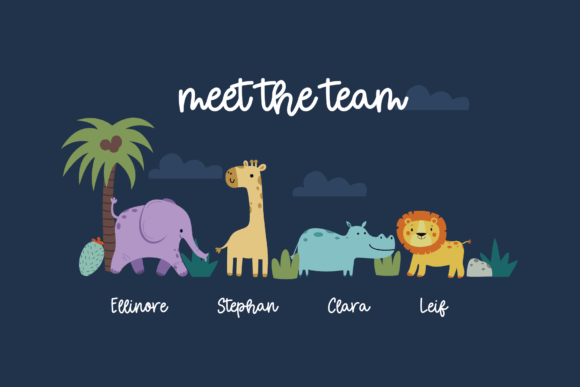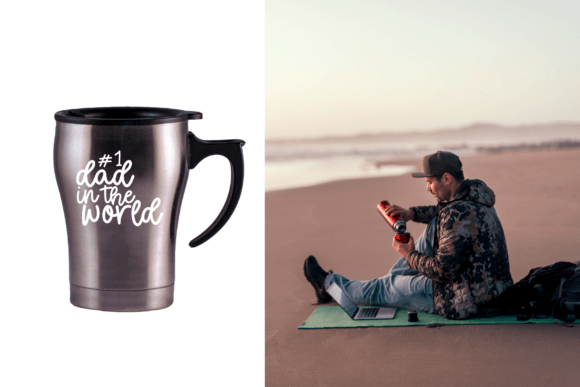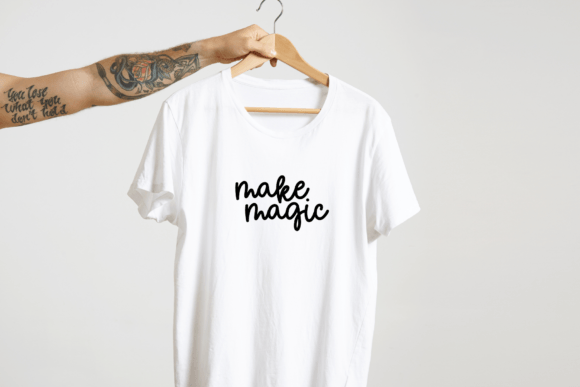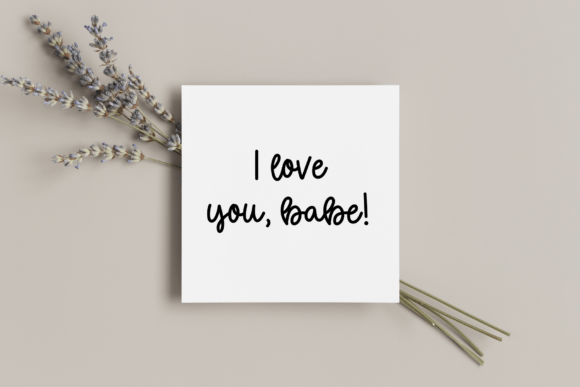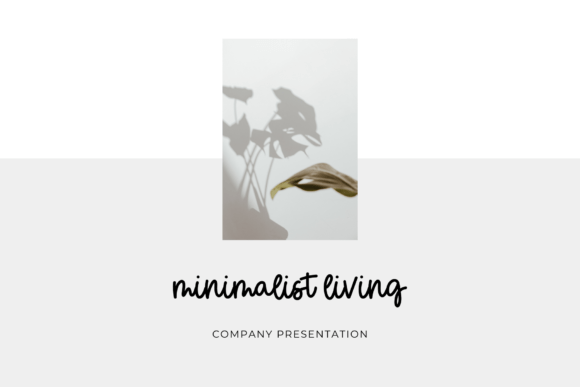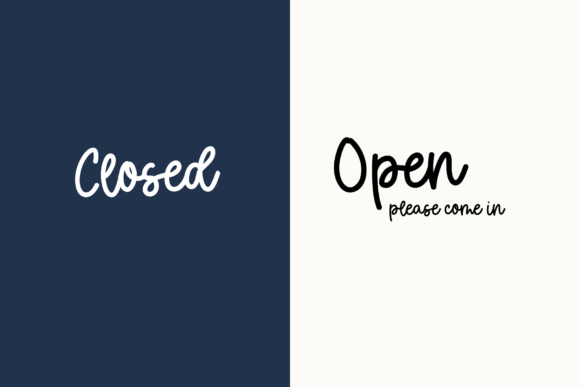
About Bubble Tea Font
**Bubble Tea Script Font: Handcrafted Elegance**
Bubble Tea is a charming and elegant script font that brings a handcrafted, authentic feel to your design projects. Here’s why Bubble Tea is a valuable addition to your font collection and how it can elevate your work:
1. **Handcrafted Elegance:** Bubble Tea is carefully crafted to exude an elegant and hand-drawn appearance. Its flowing and organic letterforms add a touch of authenticity to your designs.
2. **Unique Character:** This font offers a distinctive and unique character that sets it apart from standard typefaces. It’s ideal for projects that require a personalized and artisanal touch.
3. **Versatile Usage:** Bubble Tea’s versatility makes it suitable for various design applications. Whether it’s branding, invitations, blogs, planners, or any creative project, it can adapt seamlessly.
4. **Branding and Logos:** Create memorable and bespoke logos and branding materials with Bubble Tea. Its elegant script style can give your brand a distinct and sophisticated identity.
5. **Invitations and Stationery:** Design elegant and personalized wedding invitations, event stationery, or greeting cards with Bubble Tea to impress your audience.
6. **Blog Headers and Titles:** Use Bubble Tea to add a hand-lettered charm to your blog headers, titles, and featured images. It can make your blog posts stand out.
7. **Planners and Journals:** Enhance the visual appeal of planners, journals, and diaries with Bubble Tea’s elegant script. It’s perfect for adding headings, quotes, and decorative elements.
8. **Social Media Graphics:** Create eye-catching social media posts, quotes, and captions with Bubble Tea. It adds a touch of sophistication to your Instagram, Pinterest, or Facebook content.
9. **Posters and Flyers:** Whether it’s event posters, flyers, or promotional materials, Bubble Tea can make your designs more inviting and captivating.
10. **DIY Projects:** Incorporate Bubble Tea into your DIY craft projects, scrapbooking, and handmade gifts. It can add a personalized and heartfelt touch.
11. **Blogs and Websites:** If you have a personal blog or website, Bubble Tea can be used for headers, navigation menus, and featured content to enhance the overall visual appeal.
12. **Authentic Hand-Lettered Feel:** Bubble Tea achieves the look of hand-lettering without the need for manual writing. It delivers the charm of handcrafted typography with ease.
Bubble Tea is a valuable asset for designers, bloggers, content creators, and anyone looking to infuse a sense of elegance and authenticity into their projects. With its graceful and flowing script, it provides a beautiful handcrafted look that elevates the visual impact of your work. Whether you’re creating branding materials or crafting personal projects, Bubble Tea brings a touch of unique charm to every design.